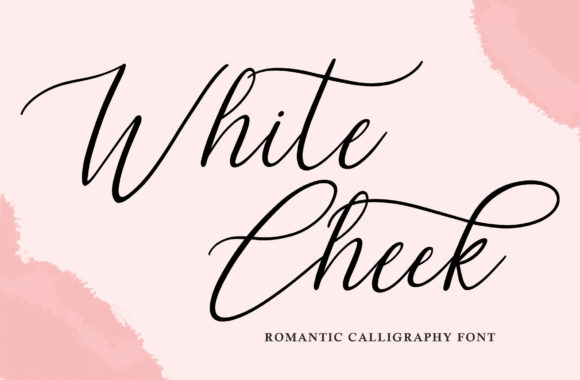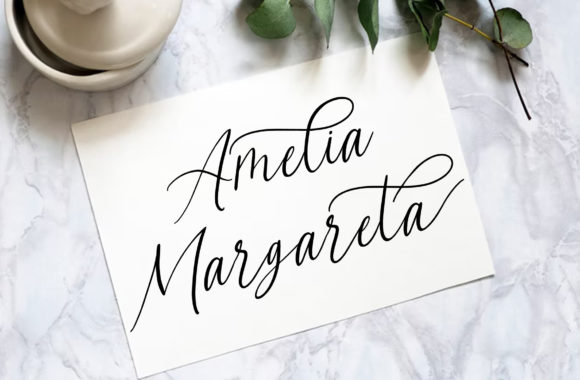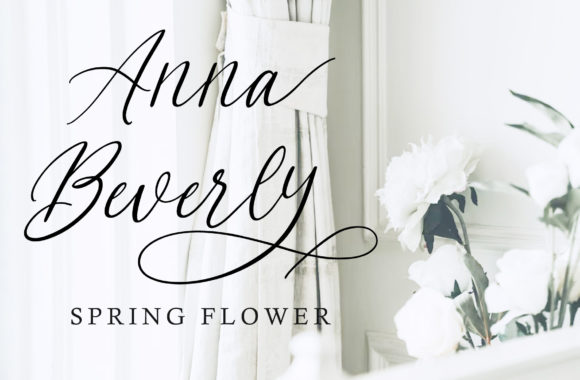
About White Cheek Font
White Cheek is a classy and modern calligraphy font. It is perfect for invitation cards, branding, stationery design, websites, labels, photography and editorial design. This font is PUA encoded which means you can access all of the glyphs and swashes with ease!Â